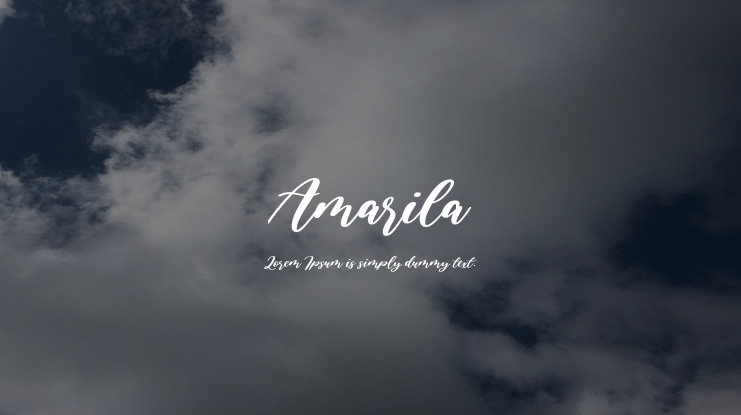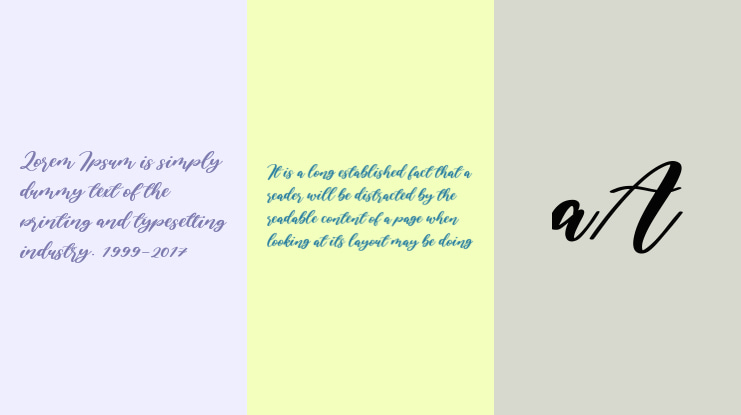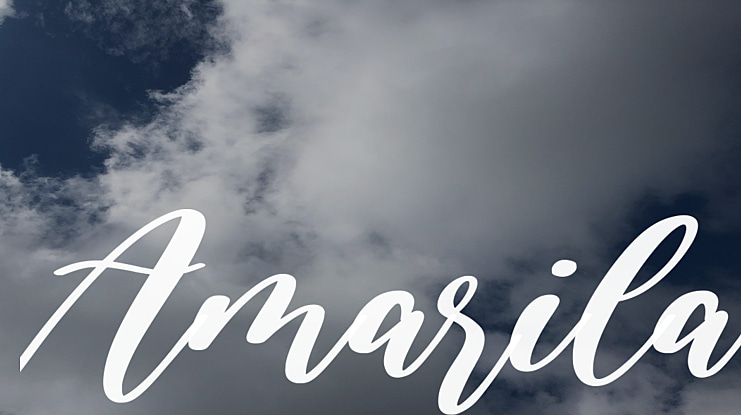
Amarila Font
Proudly Present, Amarila Font.
Amarila is a Lovely Handwritten Font. This sweet font has nice smooth lines.
Amarila is perfect for product packaging, branding project, megazine, social media, wedding, or just used to express words above the background.